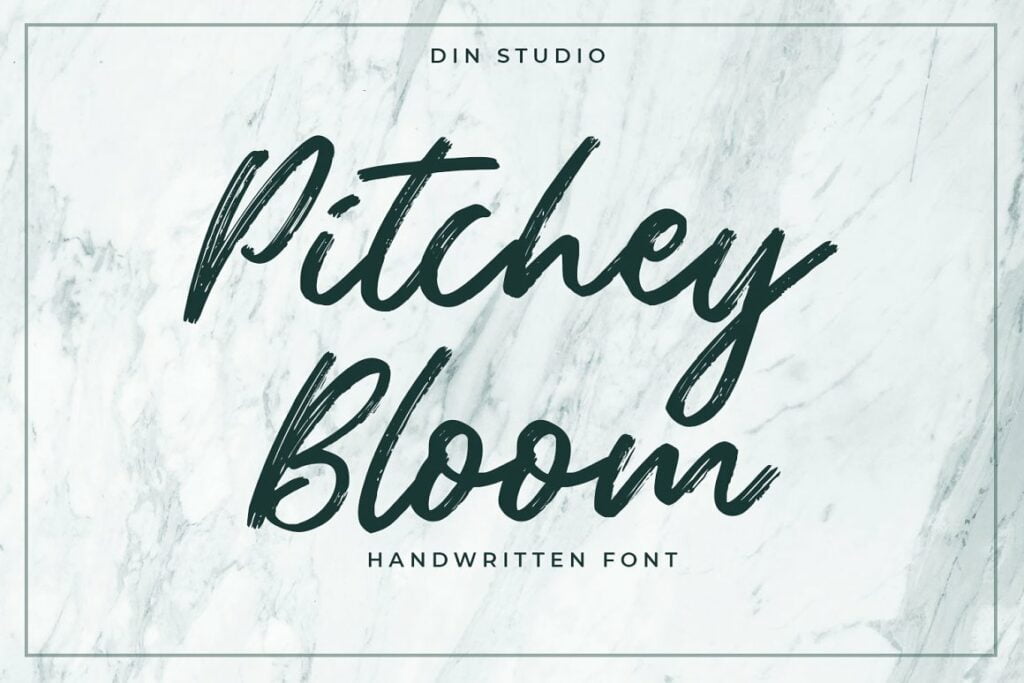
Pitchey Bloom Brush Script Font
Pitchey Bloom Brush Script Font feels equally charming and elegant. It looks stunning on wedding invitations, thank you cards, quotes, greeting cards, logos, business cards and every other design which needs a handwritten touch.
This font is PUA encoded which means you can access all of the glyphs and swashes with ease! It features a varying baseline, smooth lines, gorgeous glyphs and stunning alternates. This font is free for PERSONAL USE.